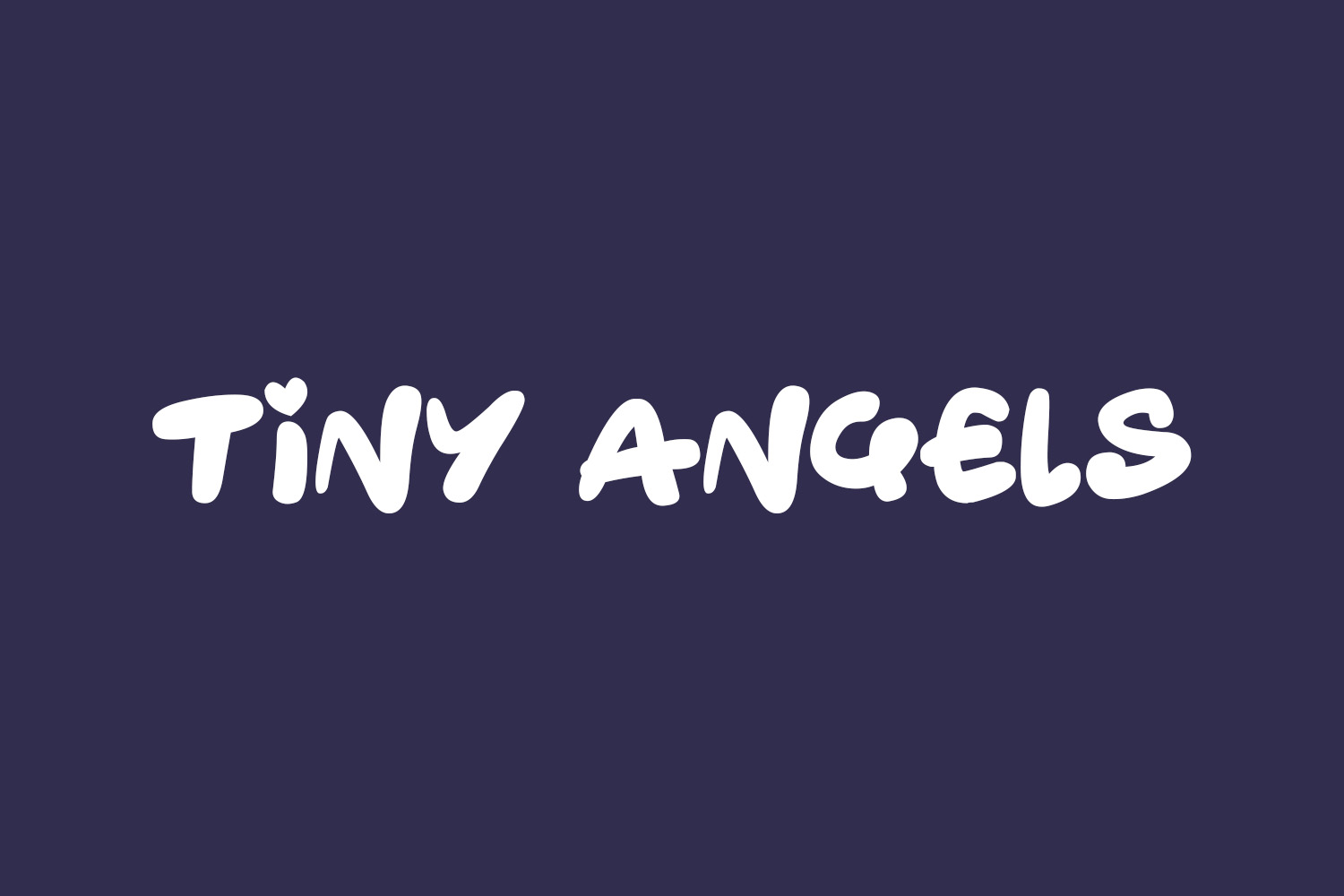
Tiny Angels Free Font Family is a playful and endearing display font. It is perfect for capturing the innocence and joy of childhood. Its whimsical, cartoon-style design is reminiscent of our favorite childhood memories. Typeface brings a touch of magic to any design project. The font family features a range of styles. From bold and playful to light and airy, giving you the versatility to create a wide range of designs that appeal to children and adults alike. Whether you’re creating posters, greeting cards, or children’s books, the font family is sure to add a touch of fun and innocence to your designs, making them truly unforgettable. Its charming and lighthearted style will transport you back to the days of innocence and bring a smile to everyone’s face.
Designed by Darrell Flood